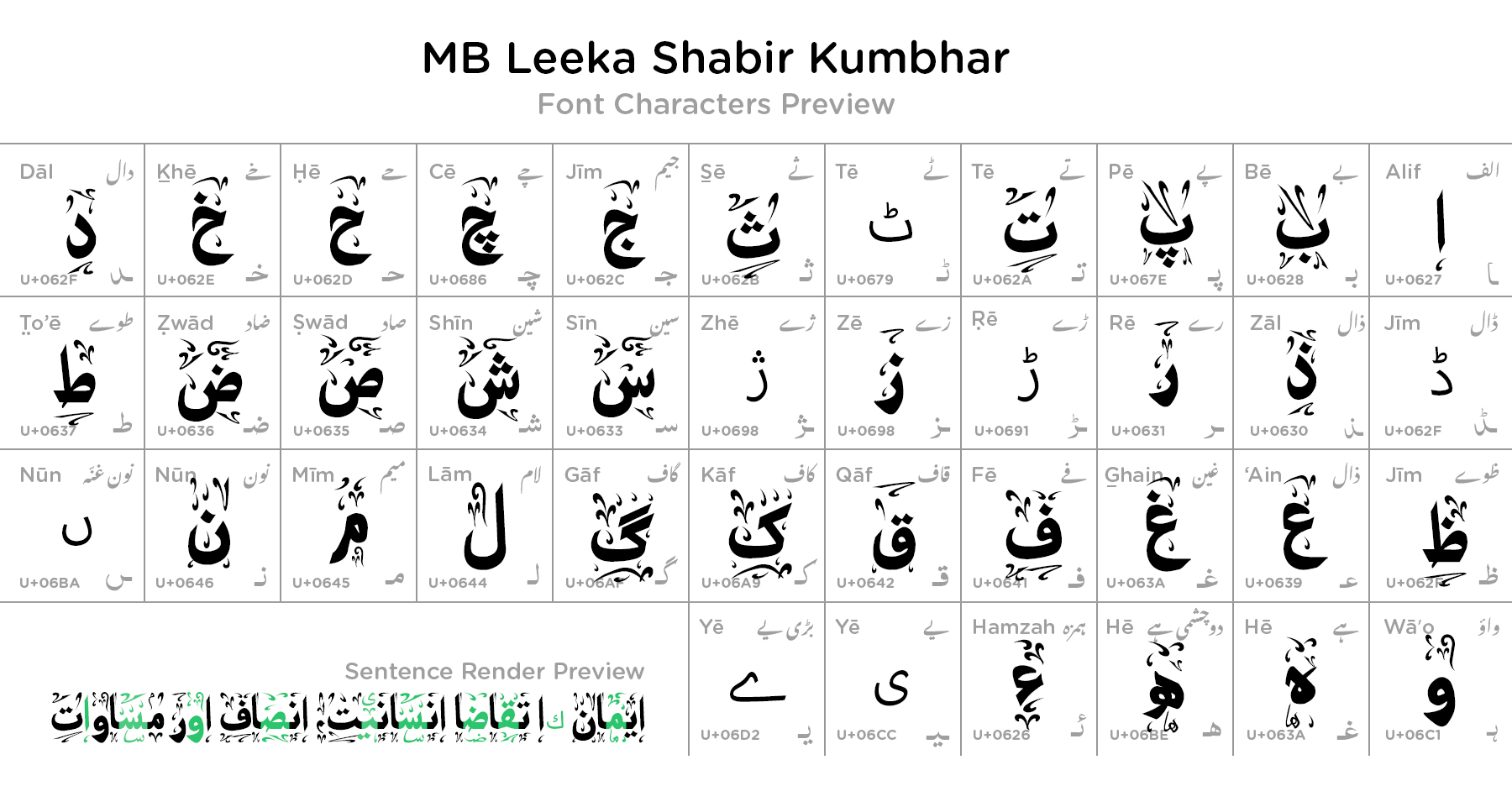
MB Leeka Shabeer Kumbhar is a Sindhi font designed by font designers Abdul-Majid Bhurgri and Shabeer Kumbhar. It is a bold and decorative typeface that is a trademark of the Shabeer Kumbhar Hala Sindh. It is an ornamental script font inspired by Islamic calligraphy, drawing inspiration from historical scripts like Naskh or Kufic. The font features decorative flourishes at the beginnings and endings of letters, adding elegance to the design. Stroke thickness varies, creating a dynamic effect. Letterforms are based on rounded shapes for a softer aesthetic. Some letters appear connected, resembling Arabic scripts. Overall, the font showcases ornate and visually interesting letter construction techniques.
Moreover, the font offers 411 letters, symbols, and 387 glyphs, making it useful for various typographic needs. With a strong stroke and impactfully striking appearance, the typeface offers a persuasive vibe. Therefore, it is ideal for short textual blocks as it would be unsuitable for longer passages. Its high legibility on screens makes it perfect for applications such as Quran writing, calligraphy, book covers, writing Islamic texts, and more. The diversity of font is further enhanced with its wide Unicode support, including various blocks such as Latin, Arabic, Punctuation, Symbols, Private Use, Presentation Forms, and more. Additionally, it is compatible with different languages, such as Arabic, Latin, and Urdu, for a diverse typographic experience.